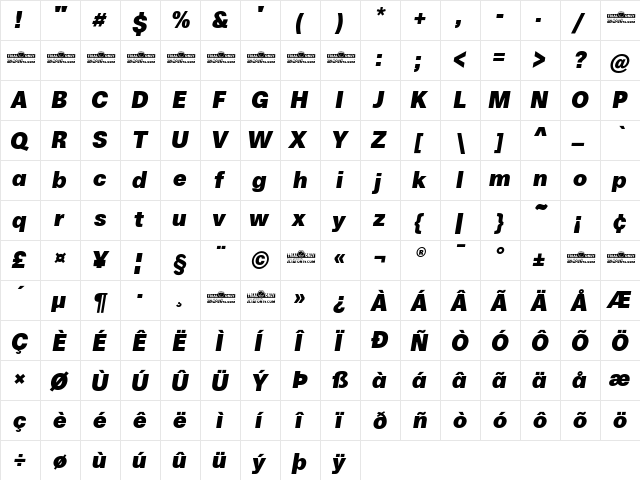
Boring Sans A Trial Heavy Italic
| Foundry | Zetafonts |
| Designer | Cosimo Lorenzo Pancini |
Design Context for Boring Sans A Trial Typeface
Boring Sans A Trial takes a measured approach to typography — its balanced proportions and neutral character make it a reliable workhorse for both digital and print work. The slanted form adds forward momentum and visual energy.